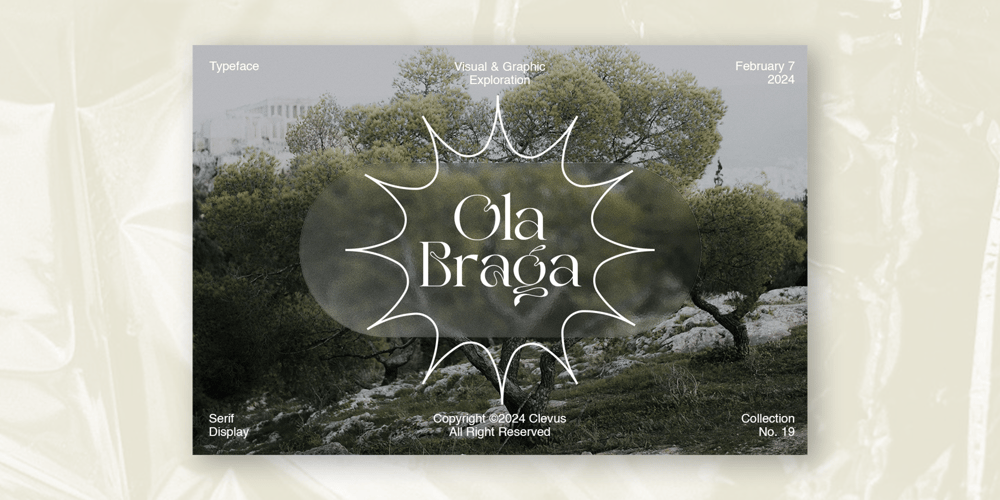
Ola Braga Elegant Serif Font Family was designed by Alfinu Zafir and published by Clevus. Ola Braga Elegant Serif contains 1 styles and family package options. Ola Braga | Elegant SerifProudly presenting “Ola Braga” – a captivating serif font collection with elegant curves, bringing unforgettable beauty to each character. A manifestation of perfection and grace, this font adds a special touch to every design. Available in its main version with stunning curved lines, as well as a regular version nestled within its alternates, adding a new dimension to your compositions. Get “Ola Braga” now and let your designs shine!Have a Good Day !